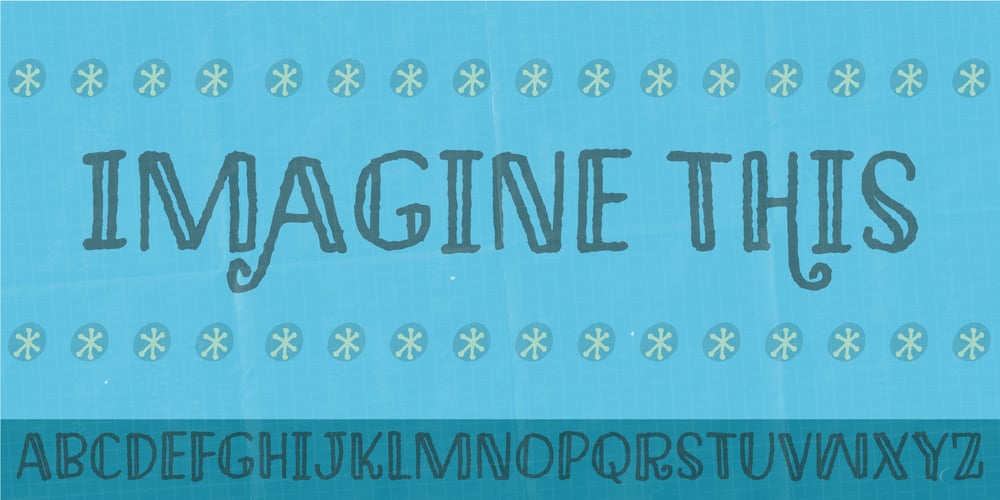
Imagine This
Imagine This font
Imagine This Font Family was designed by Jakob Fischer and published by PizzaDude.dk. Imagine This contains 2 styles and family package options. Imagine this is the crunch you expect in your cereal, the sweet taste of summer and the elegance of a beautiful sunset. The somewhat rough edges and blurry lines makes sure that your text looks like real handwritten letters…which they actually are! Imagine this was drawn with an inky permanent marker, leaving a fine structure – ideal for invitations, labels, headlines and so much more! Comes in two different versions: regular and black! Both versions has got ligature substitution for double letters, and a few swashes as well!